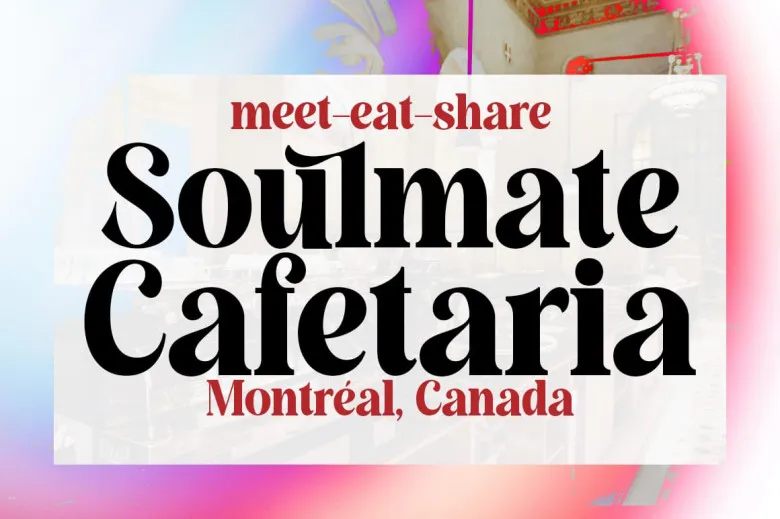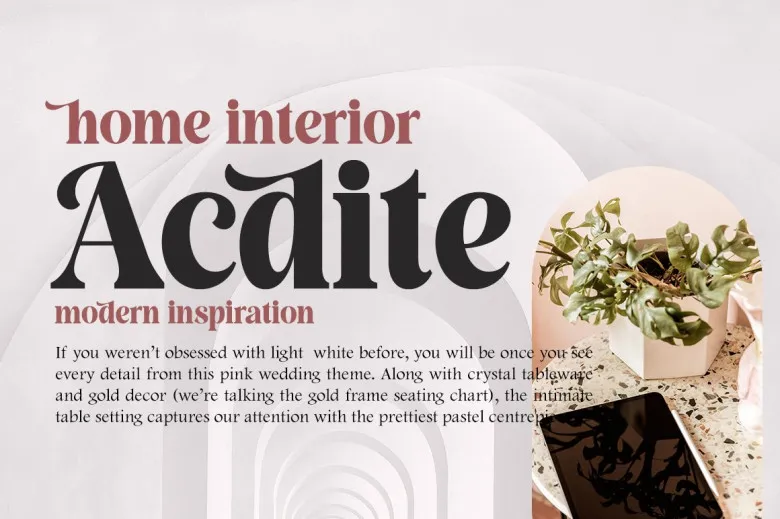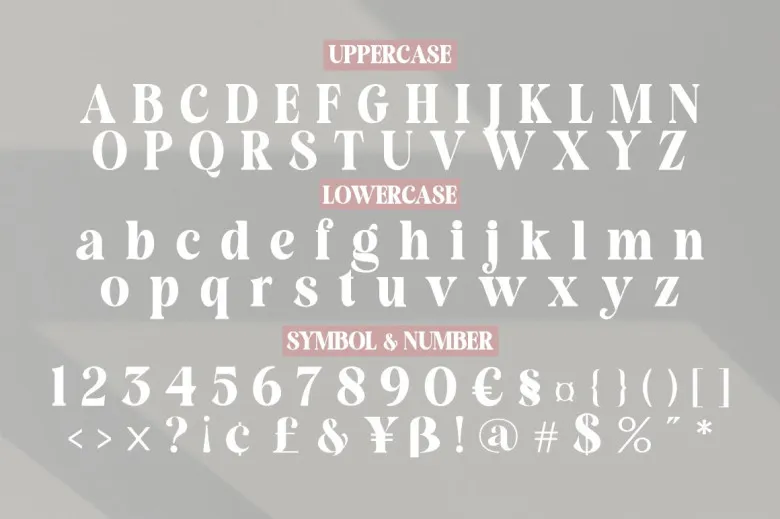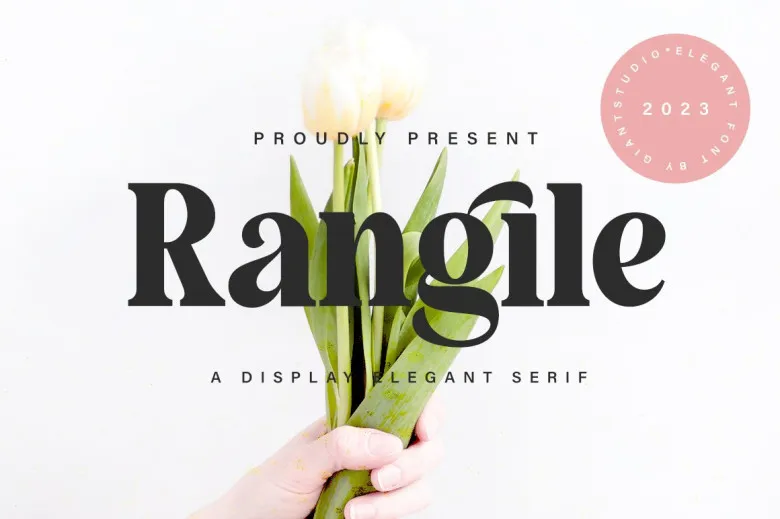
Rangile Serif Font
Rangile Font is a stylish serif font that blends classic character with a clean and balanced look. Its simple yet refined letterforms create an elegant and natural appearance, making it suitable for both personal and professional design projects. This font delivers a timeless feeling while remaining visually appealing.
Designed as a versatile modern font, Rangile works beautifully across various creative needs. It is an excellent choice for logos, branding, invitations, advertising materials, and product packaging. The modern touch in its design helps brands communicate sophistication and clarity without feeling outdated.
As a flexible display font, Rangile also performs well in social media posts, watermarks, and product designs. Its tasteful style allows it to stand out while staying readable, making Rangile a strong option for designers who want to follow current lifestyle and visual trends.